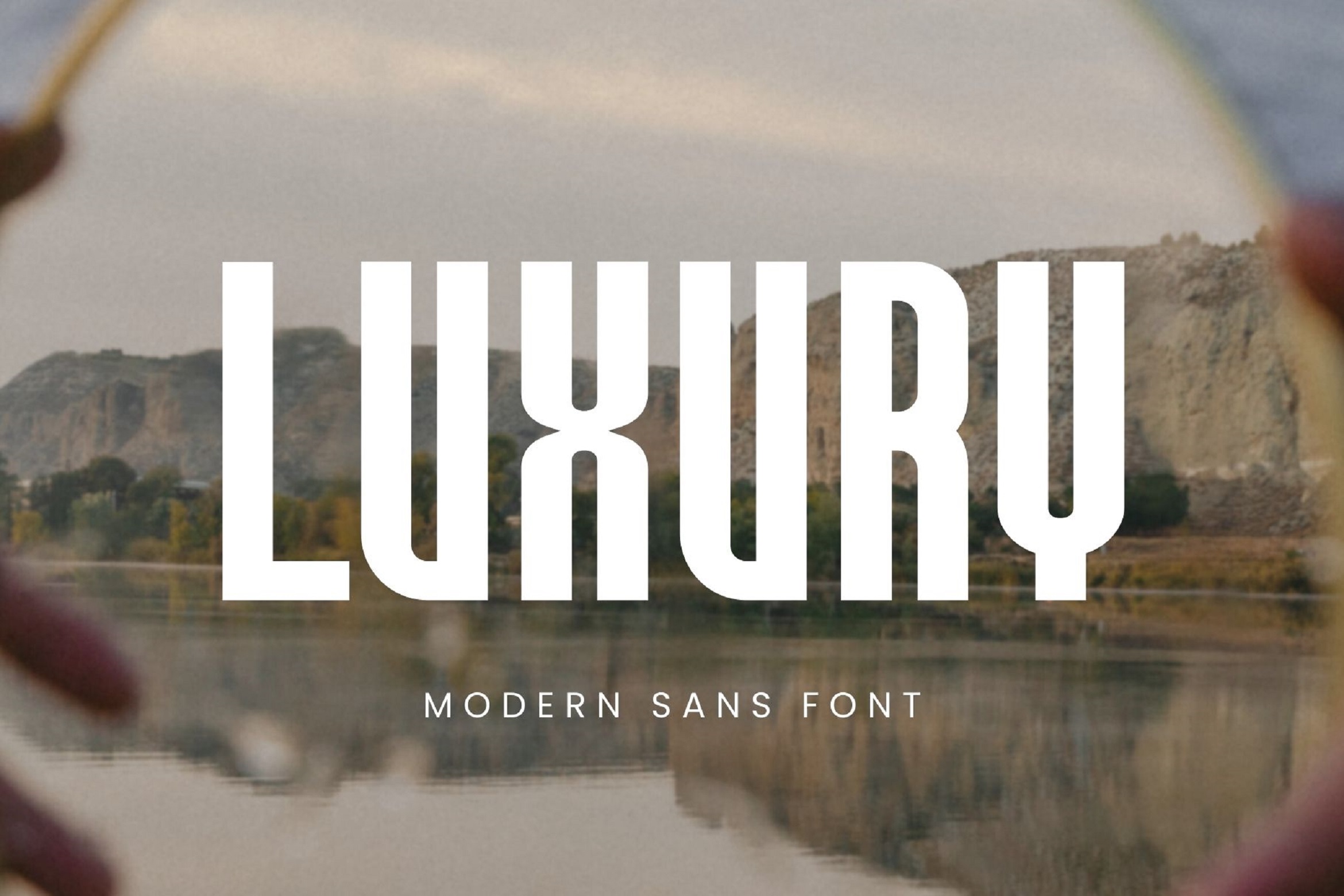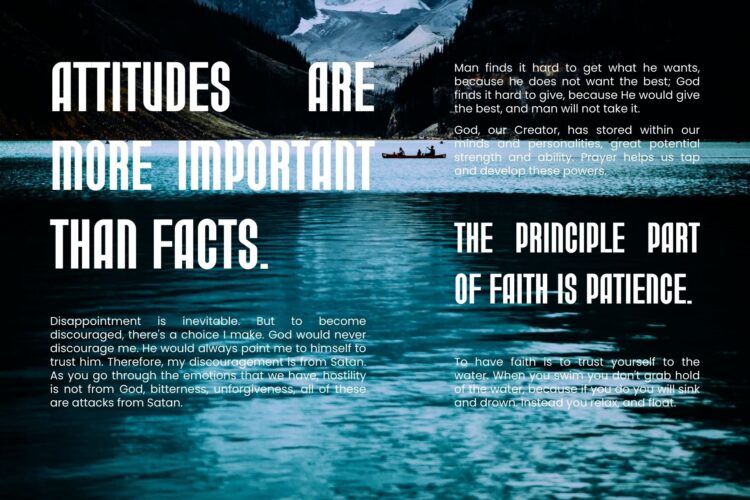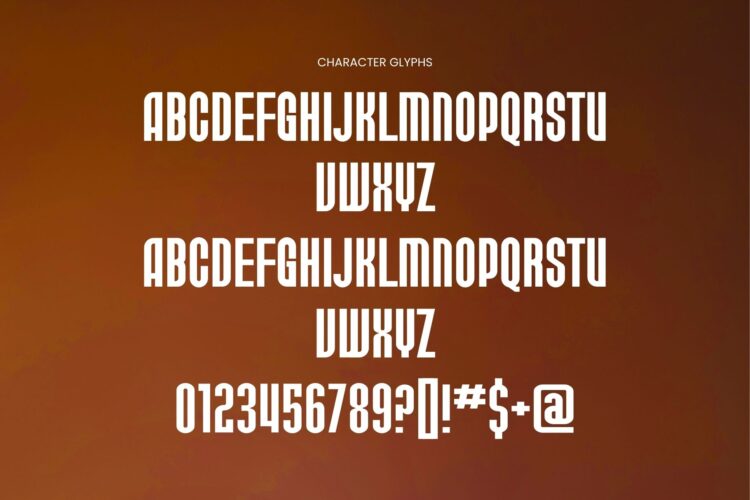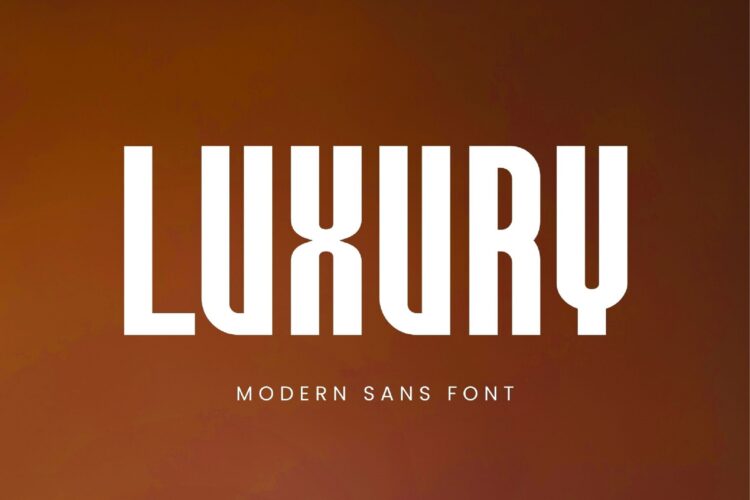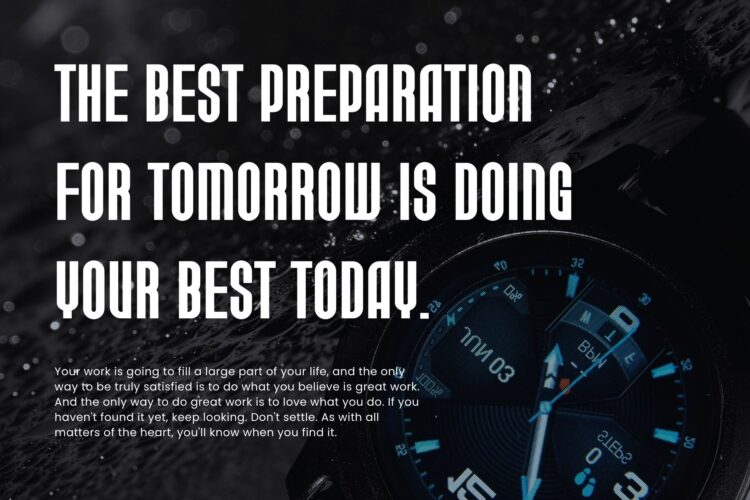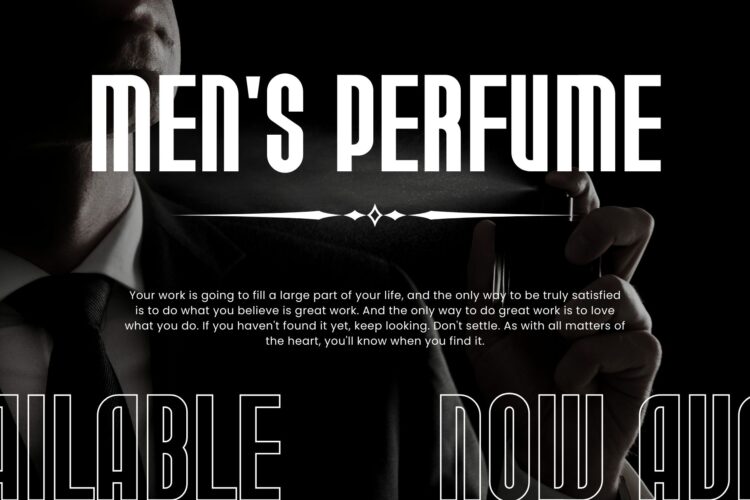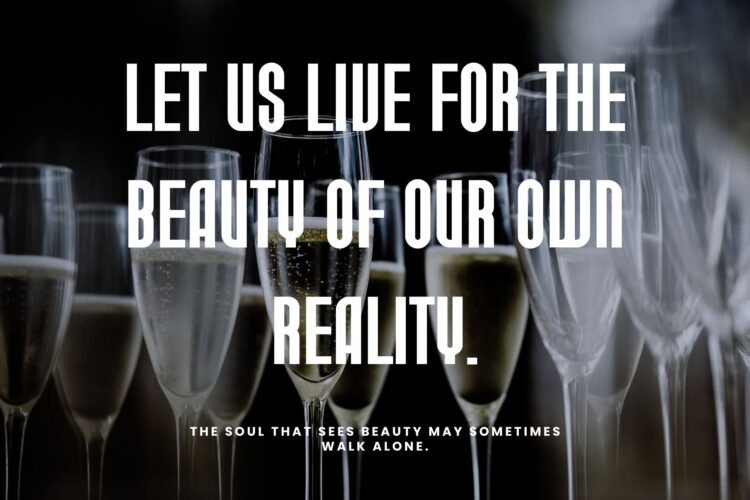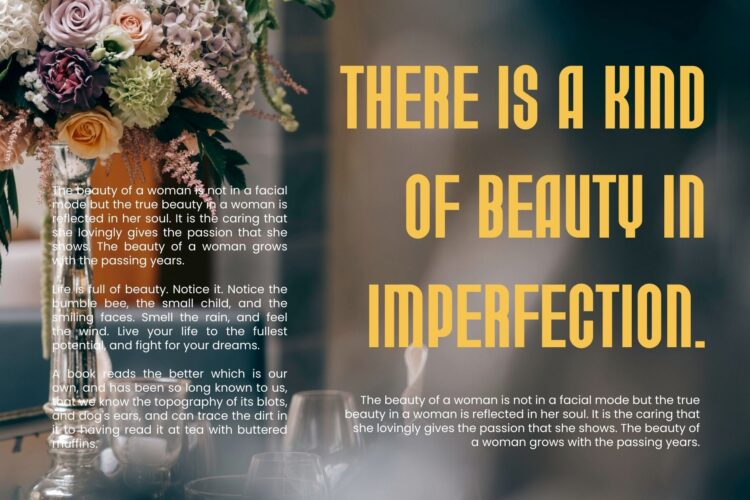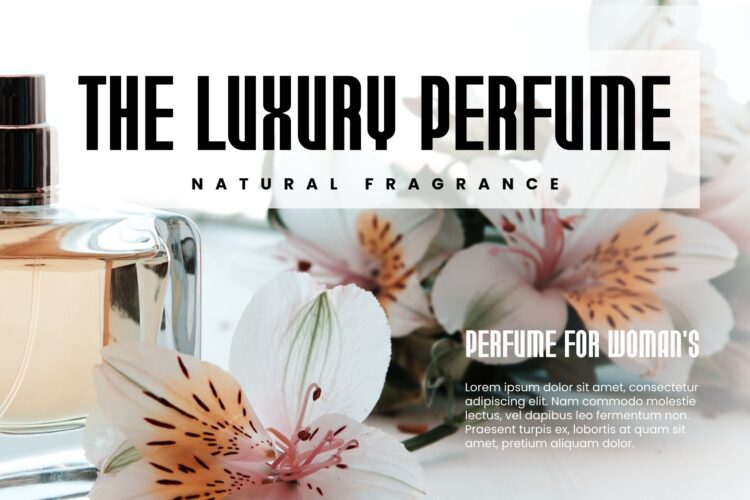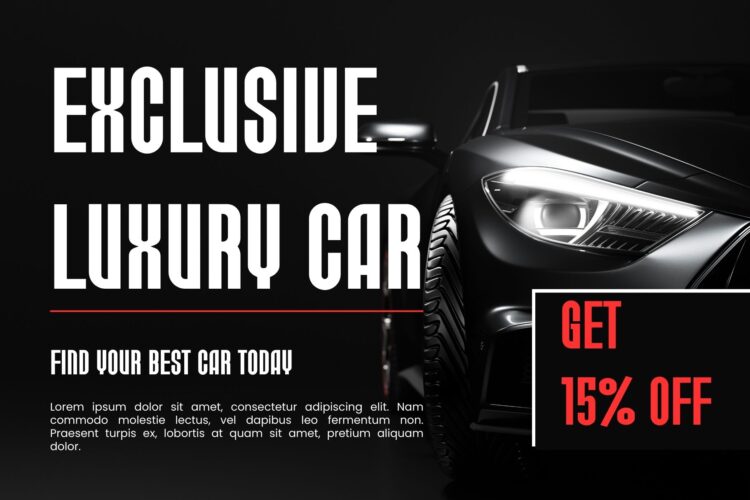
Introducing our new Luxury, modern sans serif font with elegant style this is perfect for branding, logos, invitation, magazines, product packaging and more.
Luxury – Modern Condensed Sans Serif